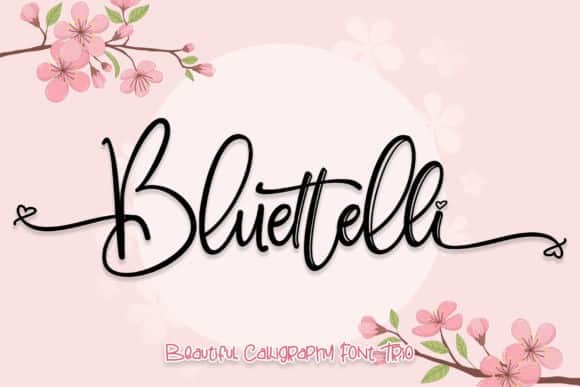
Bluettelli Calligraphy Font
Bluettelli is a fantastic font trio that combines three beautiful script calligraphy. Combining these three fonts on your next design will give a spectacular and friendly feel.
Bluettelli font perfect for wedding, event, invitation, escort card, table number, header menus, display, logos, slider blog, custom address, stamps, packaging, greeting card, etc.